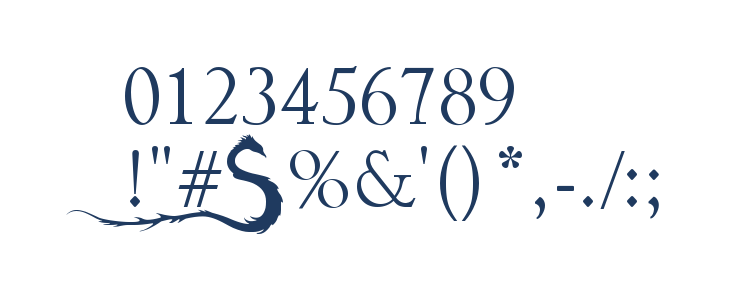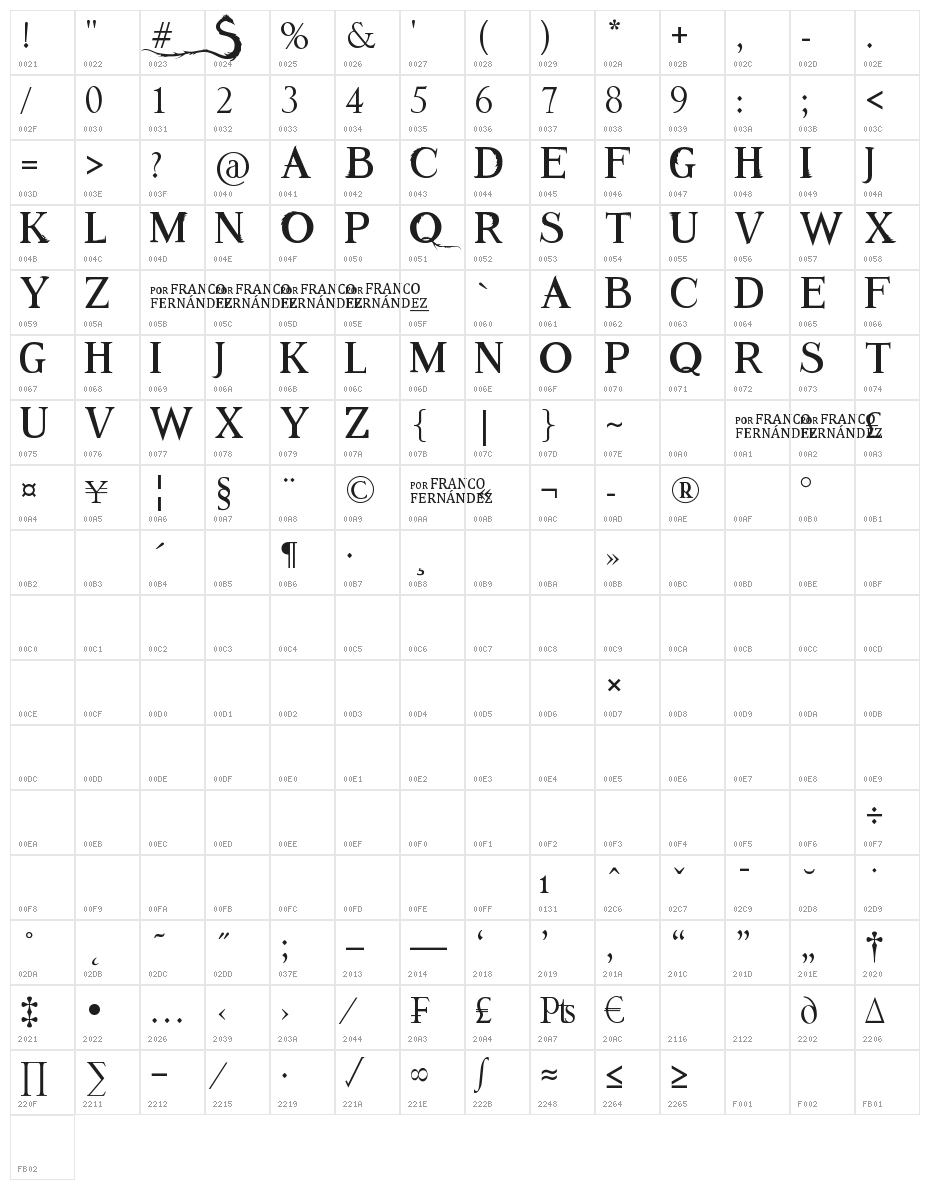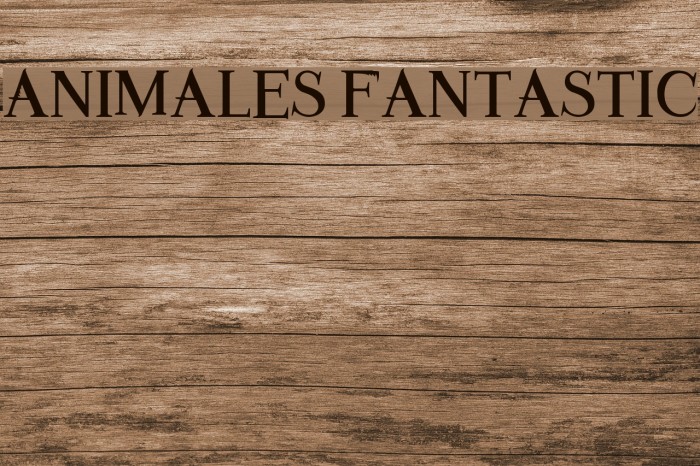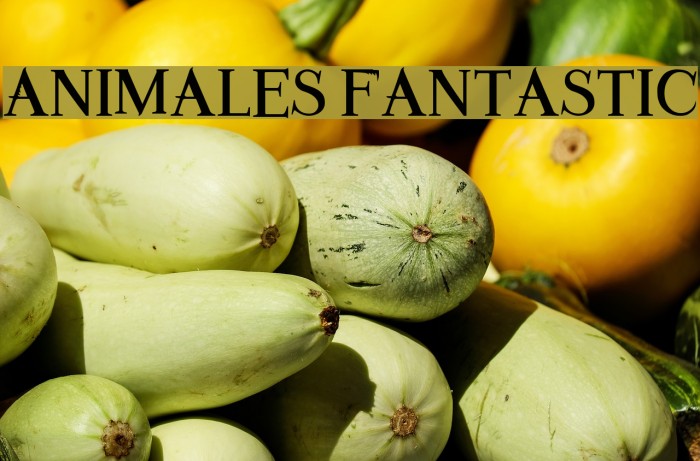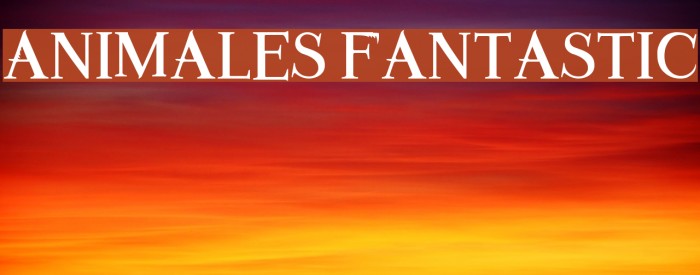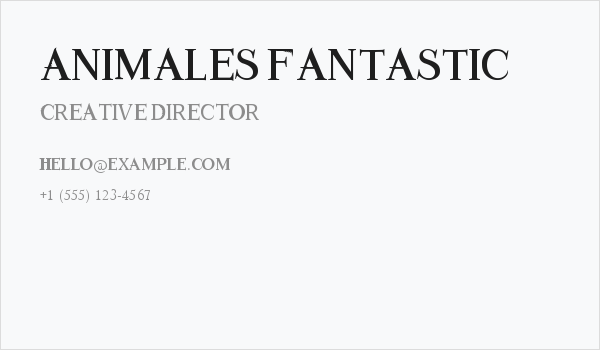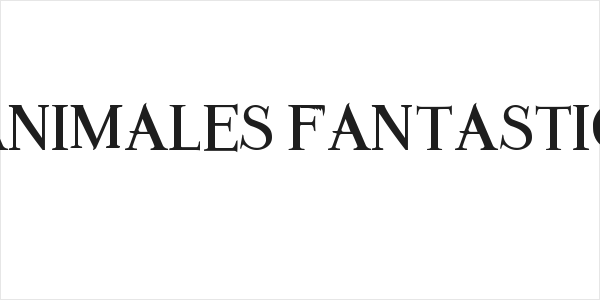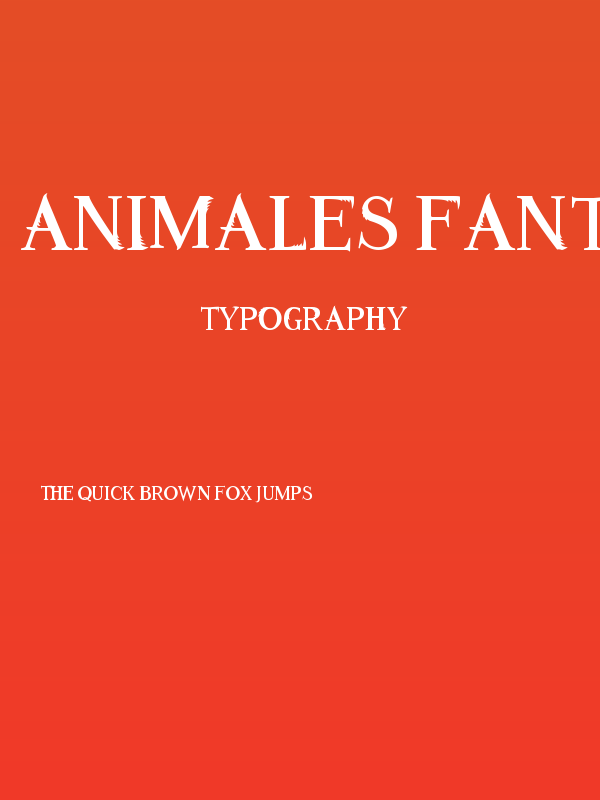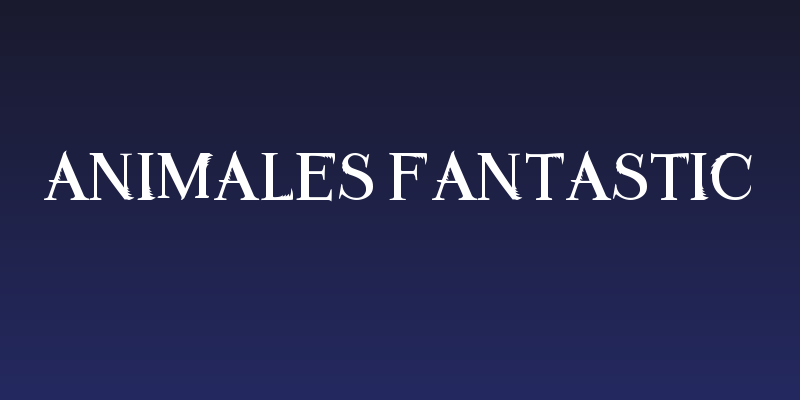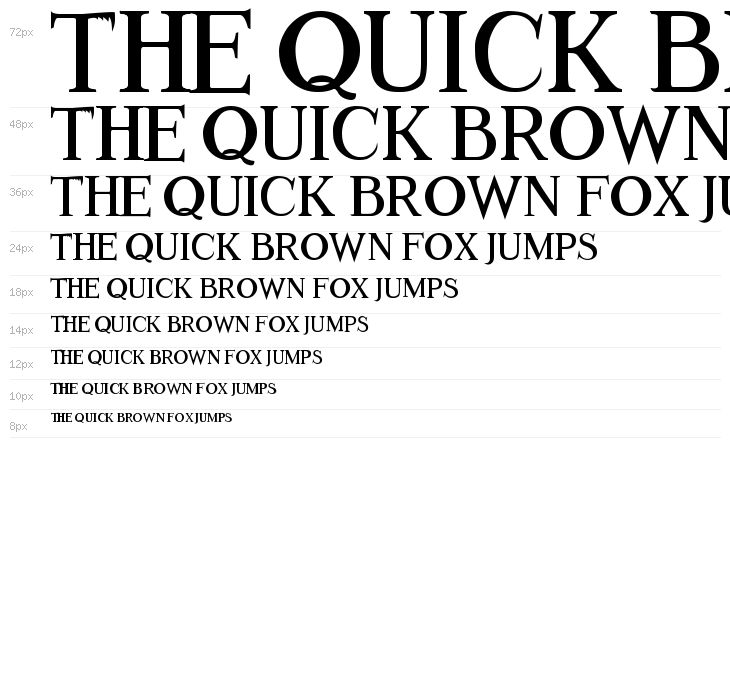
Animales Fantastic Font
Animales Fantastic Description
This font features a unique and creative design with elements that resemble animalistic or fantastical motifs. The uppercase letters are bold and striking, with certain characters incorporating subtle decorative elements that evoke a sense of whimsy and fantasy. The lowercase letters maintain a consistent style, complementing the uppercase with a similar flair. Numbers are clear and bold, ensuring readability while maintaining the overall theme. Special characters are also designed with the same attention to detail, making them suitable for a variety of creative projects. The font's distinct style makes it ideal for projects that require a touch of fantasy or a thematic design.